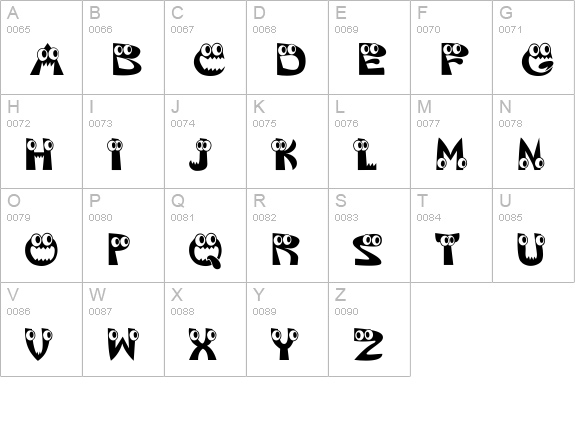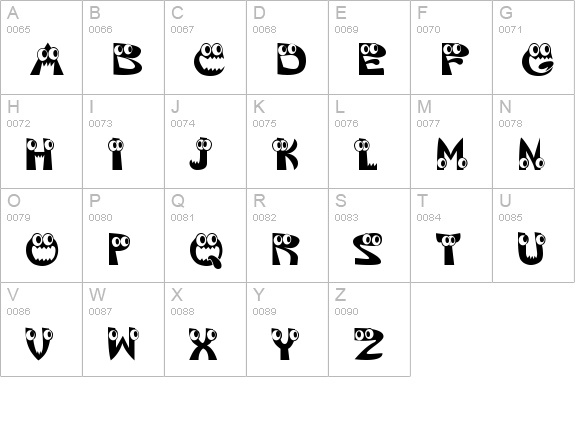
KAHorrible Font Details
Introducing KAHorrible font - a striking display typeface that exudes a sense of mystery and intrigue. This unique font is perfect for adding a touch of darkness and macabre to your designs, making it ideal for horror movie posters, Halloween-themed graphics, and hauntingly captivating book covers. With its jagged edges and uneven letterforms, KAHorrible font commands attention and leaves a lasting impression. Each character is meticulously crafted to create a sense of unease and chaos, capturing the essence of all things terrifying. Its bold and dramatic appearance makes it an excellent choice for headlines, titles, and impactful branding. But what makes KAHorrible font even more enticing is the fact that it is absolutely free. Yes, you heard it right! KAHorrible font is freely available to download at FontsMarket.com. Now, you can add a touch of horror to your designs without breaking the bank. Whether you're a professional designer or a hobbyist, this font is a must-have in your collection. So, unleash your creativity and let KAHorrible font take your designs to the next level. With its hauntingly beautiful aesthetic and its affordability, it's a font that is sure to captivate and leave a lasting impression on anyone who encounters it. Download KAHorrible font today from FontsMarket.com and embark on a journey into the realm of horror and darkness.